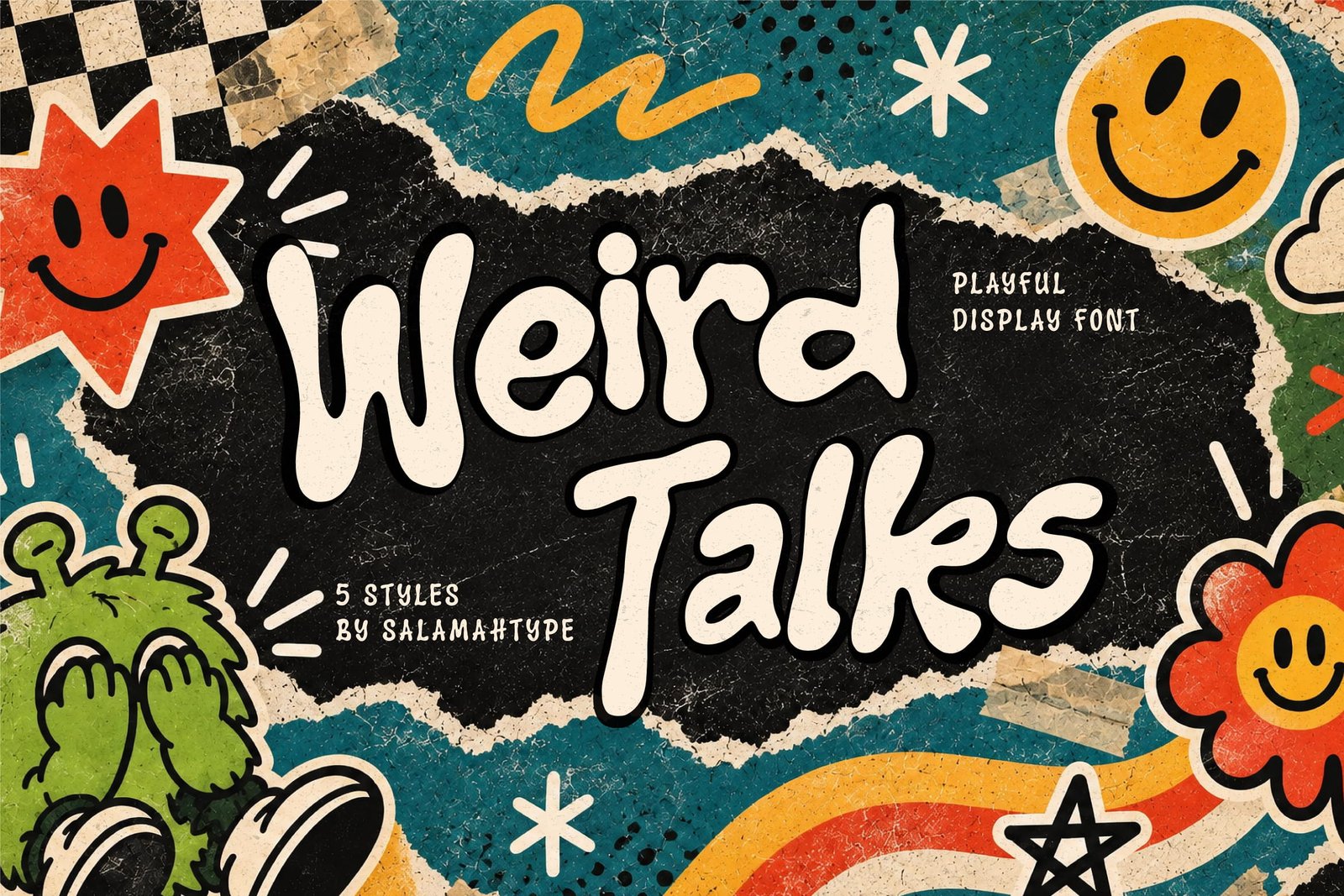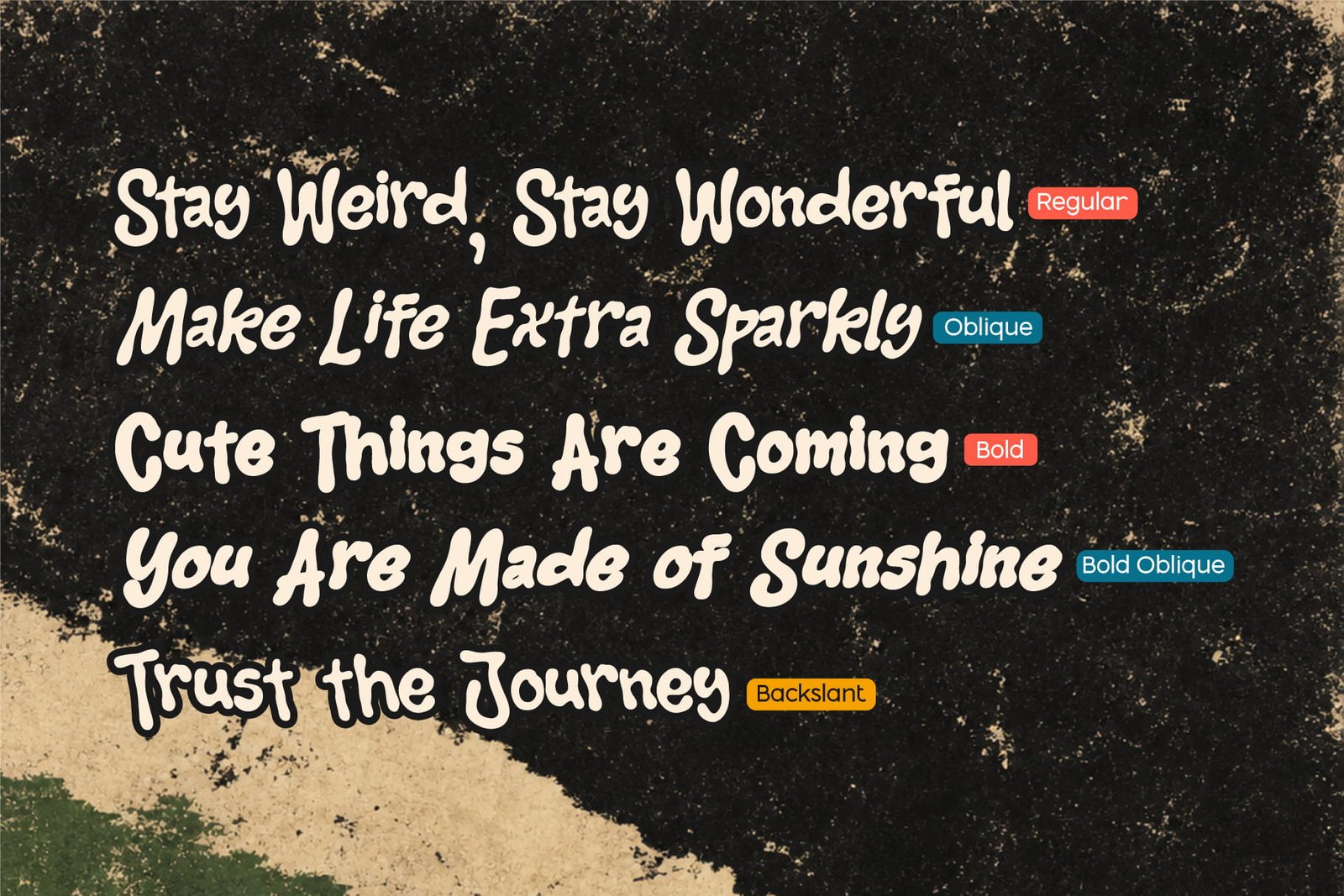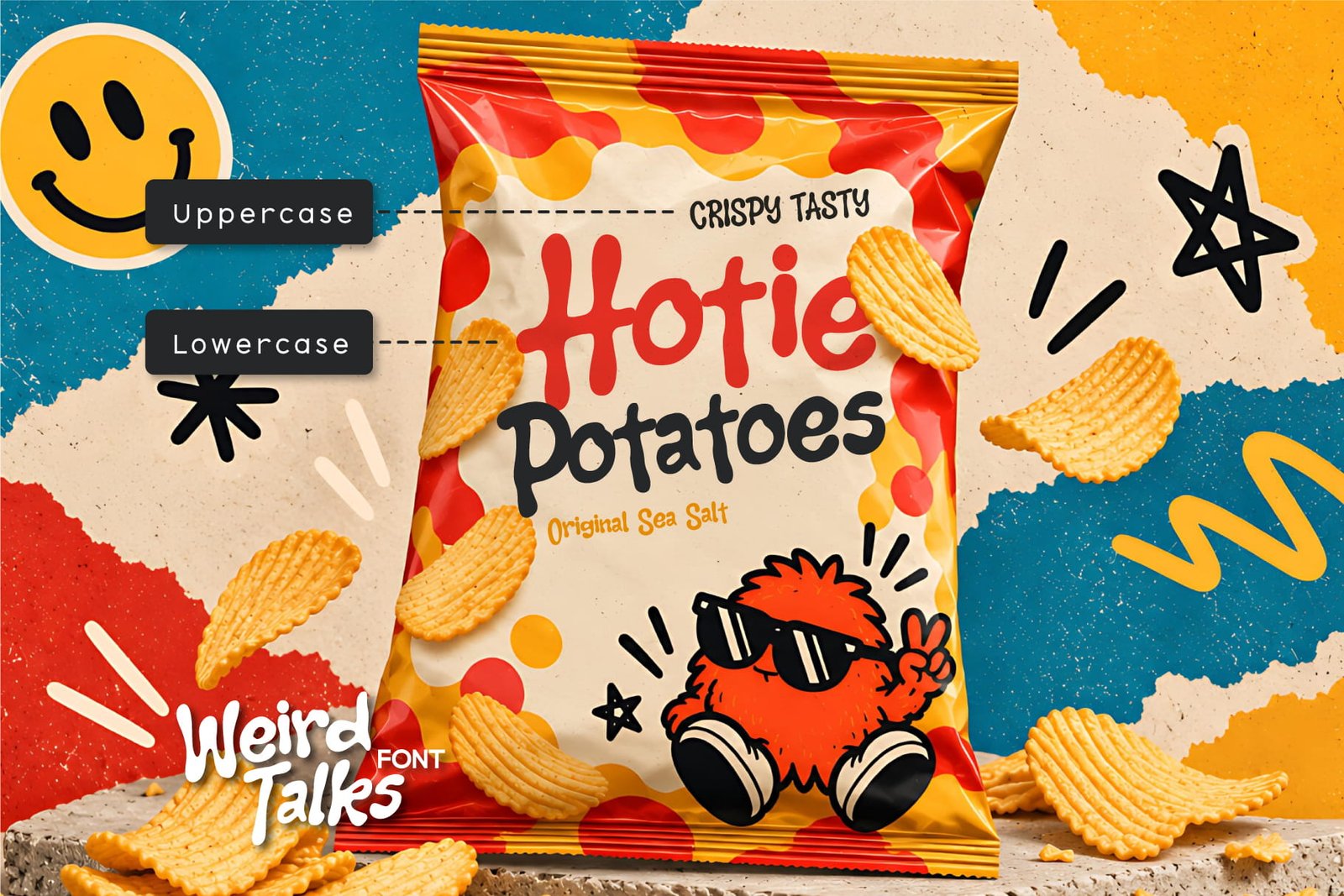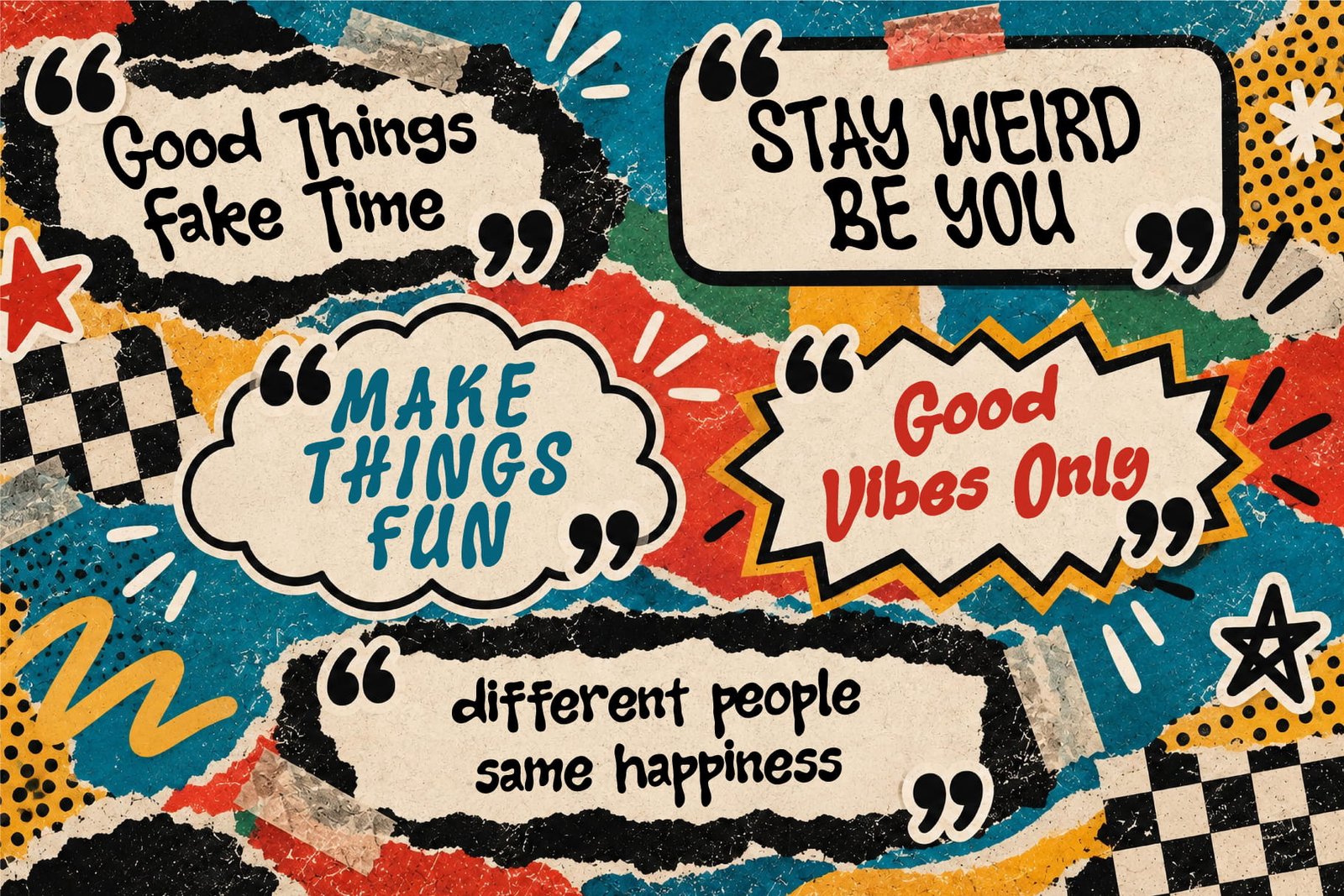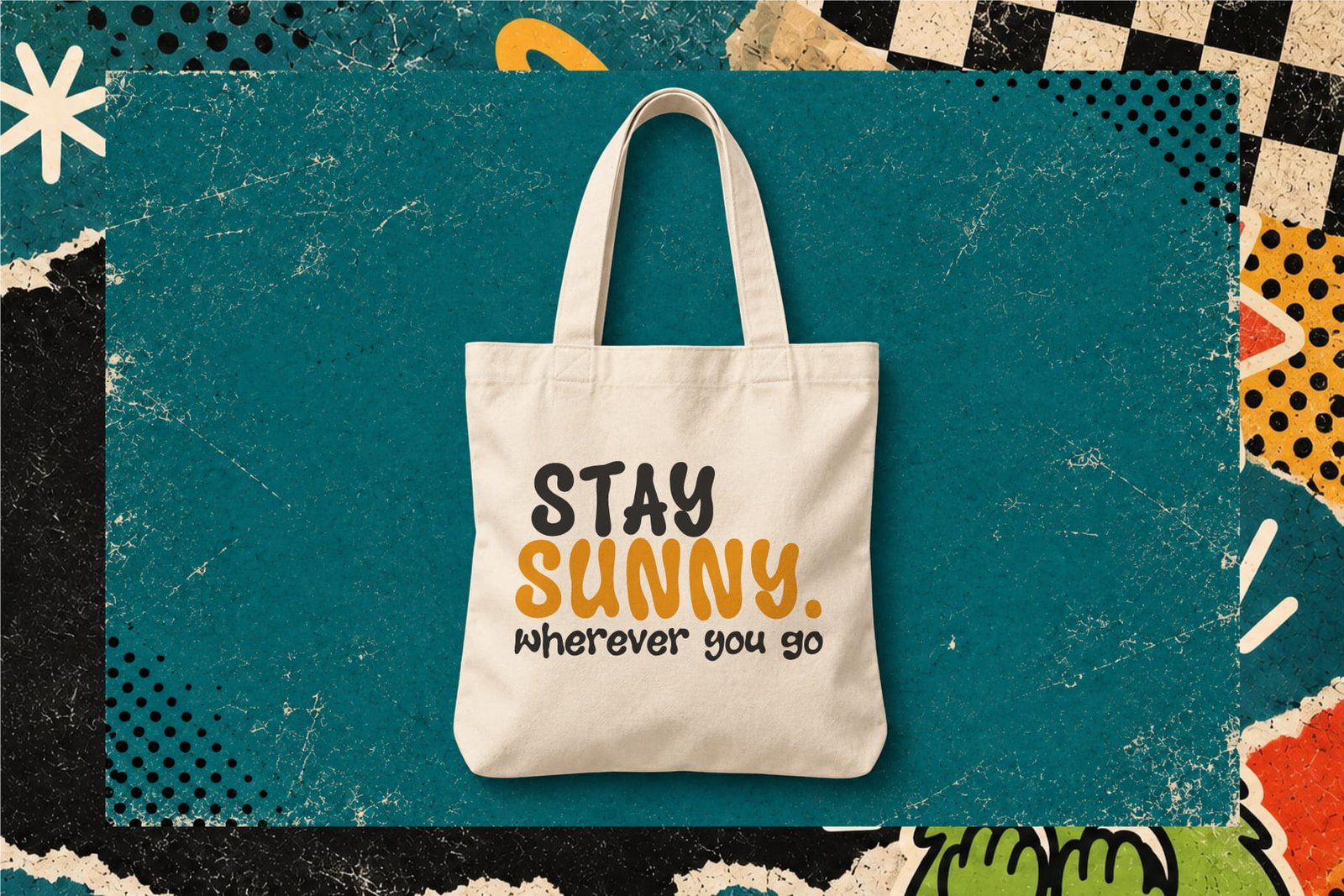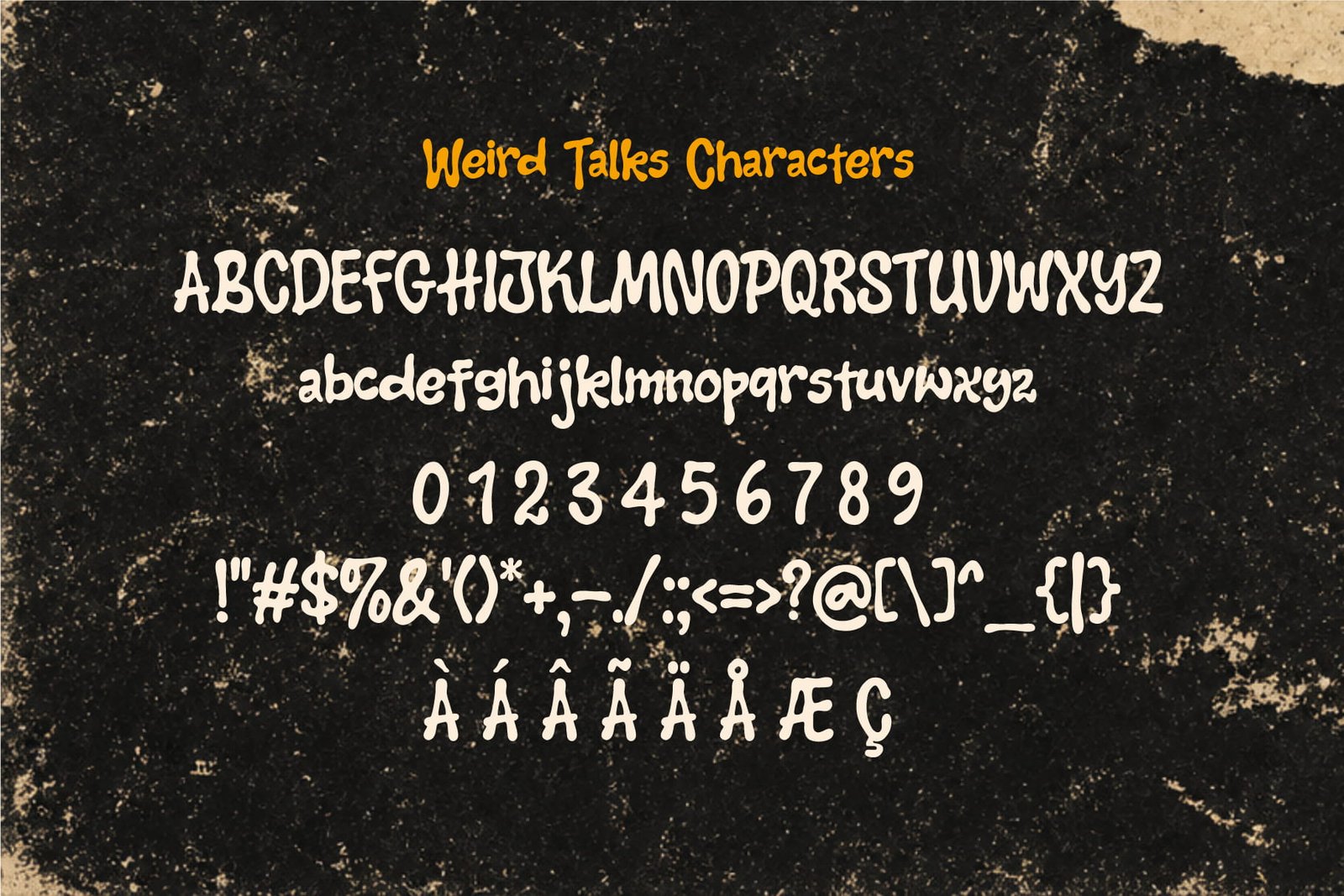
Weird Talks Playful Display Font Preview
Weird Talks Playful Display Font
Meet Weird Talks, a playful display font with a bold, hand-drawn personality and a nostalgic retro feel, inspired by quirky 90s graphics, vintage stickers, handmade lettering, comic-style artwork and expressive poster designs.
The collection combines 5 styles, giving you plenty of flexibility to create bold headlines, playful typography and eye-catching compositions while keeping the same fun and unconventional character throughout.
With its chunky shapes, organic curves and slightly imperfect handmade look, Weird Talks is made for projects that want to feel energetic, cheerful and full of personality — from logos, apparel, stickers, packaging, posters and merchandise to branding, social media graphics and editorial designs.
Bold, quirky and unapologetically fun, Weird Talks brings a playful retro attitude to any creative project.